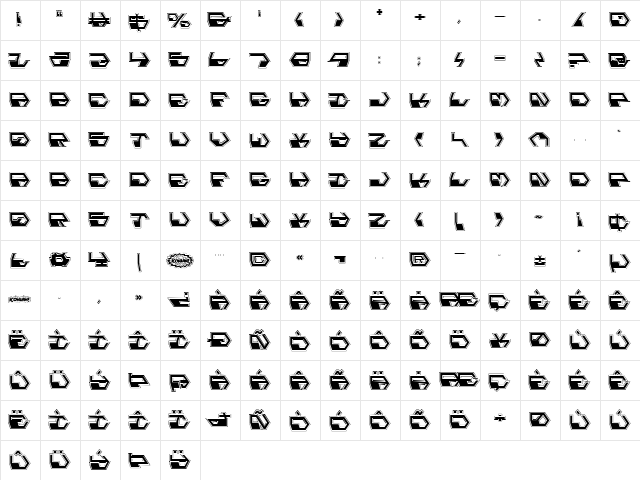
Deranian Pro Regular Font Preview
Deranian Pro Regular
Design Context for Deranian Pro Typeface
Deranian Pro is a composed and adaptable typeface that performs quietly and consistently across a wide range of design contexts.